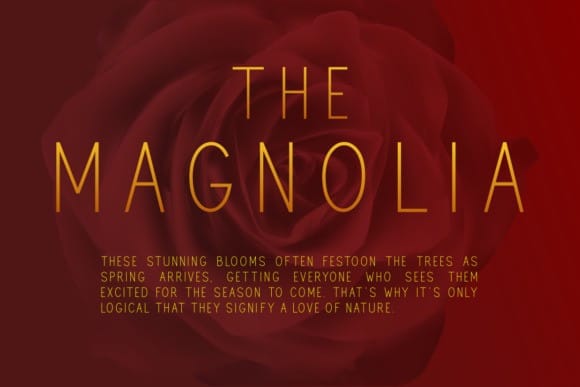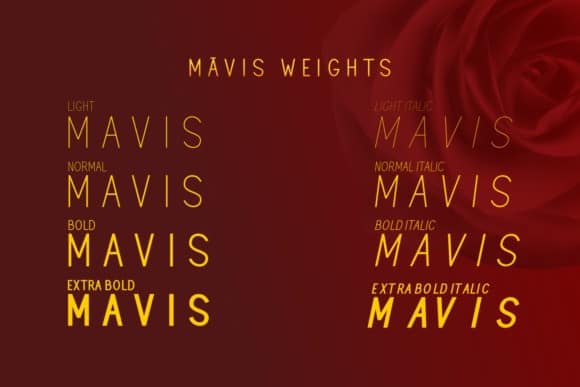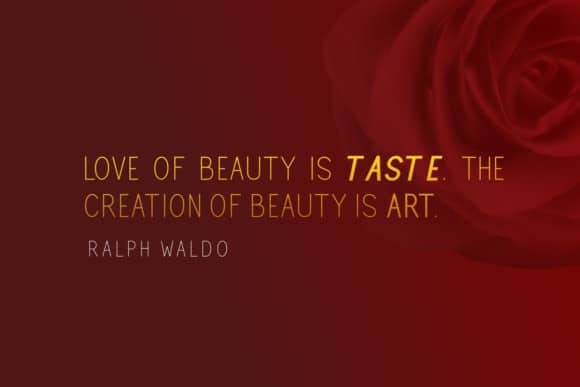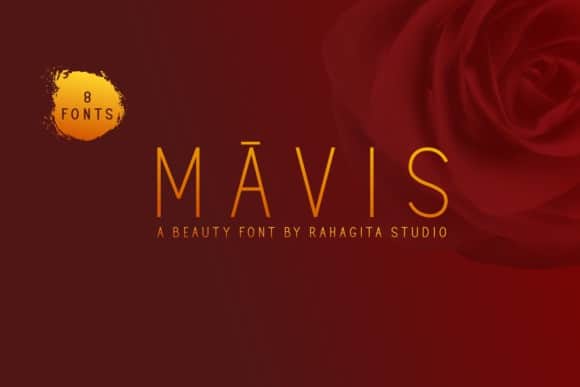
Mavis Sans Serif Font is a monoline sans serif font with a unique and modern style that is luxurious, suitable for design in the business field such as fashion, food, hotel, restaurant. Made from font designer named Rahagita Studio. Mavis is a minimal and neat sans serif typeface. It can easily be matched to an incredibly large set of projects, so add it to your creative ideas and notice how it makes them stand out!